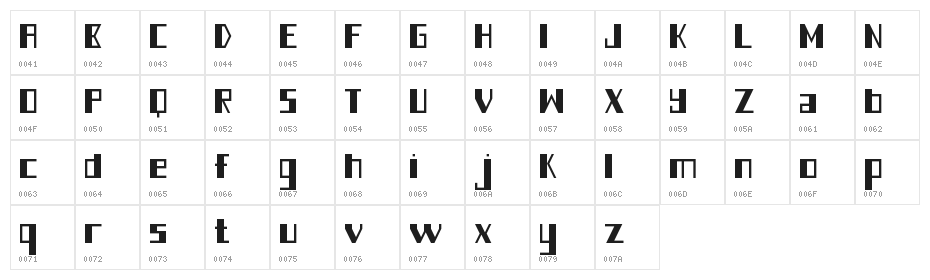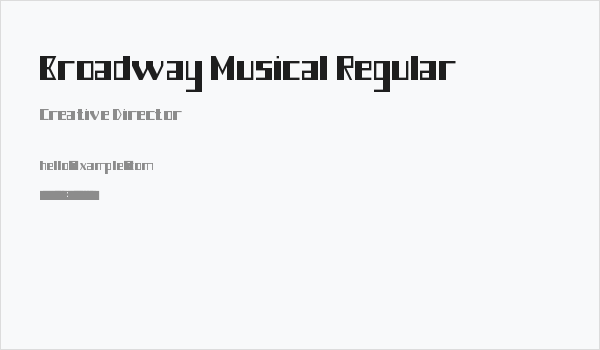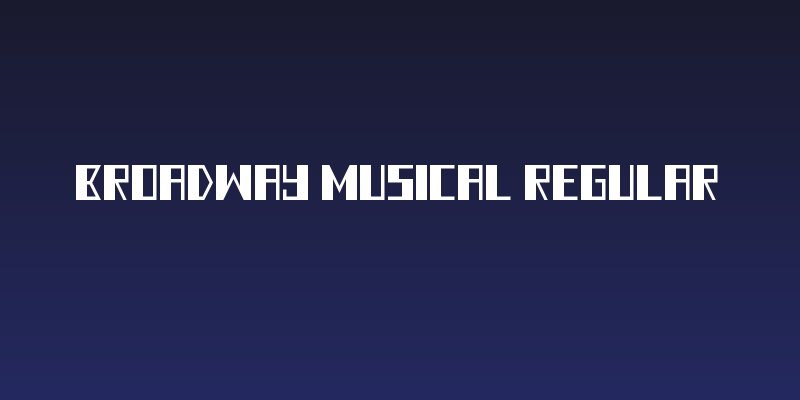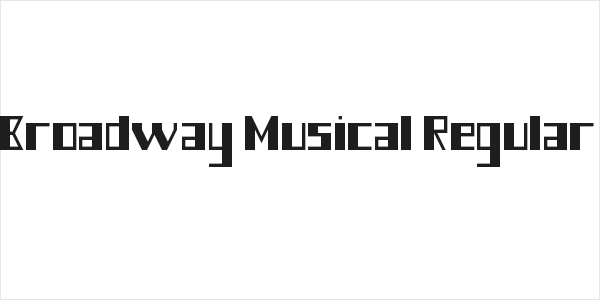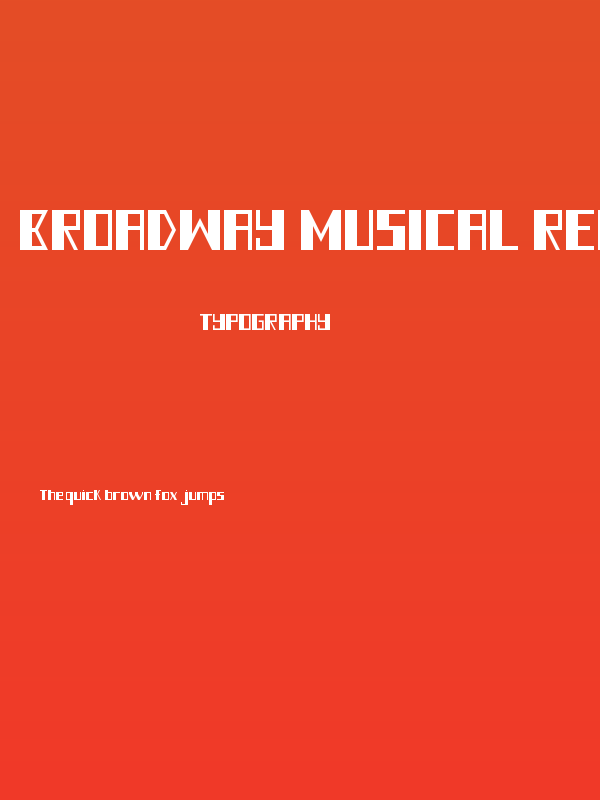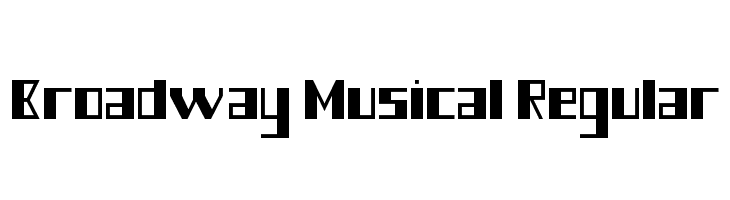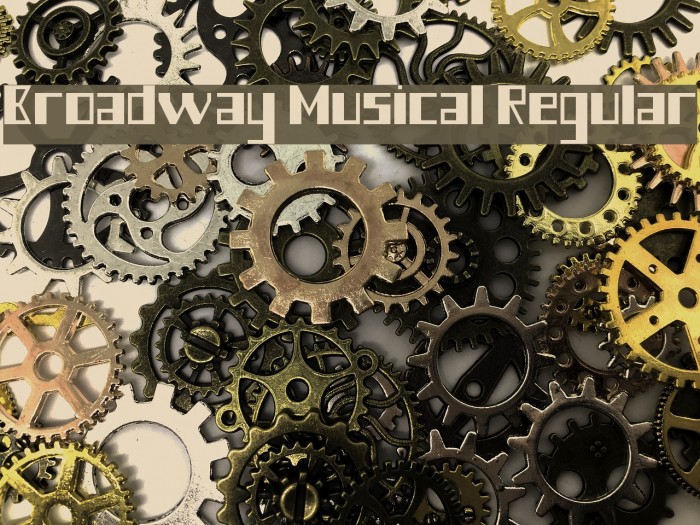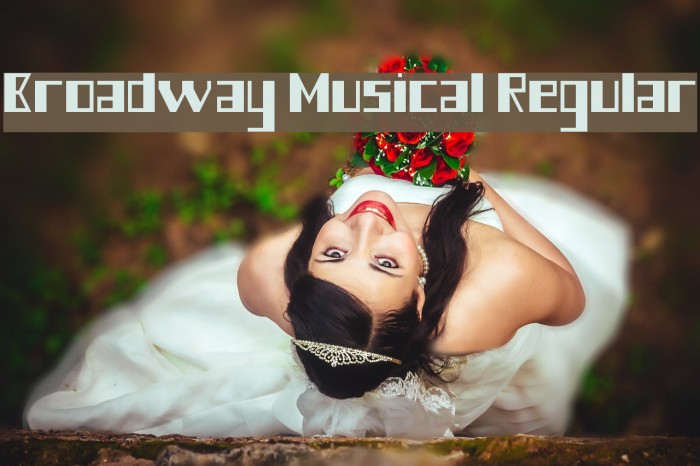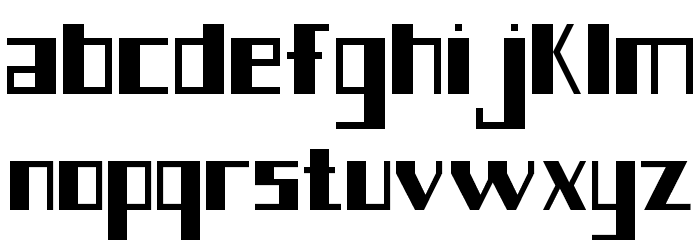
Broadway Musical Regular Font
Broadway Musical Regular Description
This font features a bold and geometric design with a strong Art Deco influence. The characters are constructed with sharp angles and straight lines, creating a sense of drama and elegance. The uppercase letters are particularly striking, with a uniform height and width that gives them a commanding presence. The lowercase letters maintain the geometric style but with slightly softer edges, providing a nice contrast to the uppercase. The numerals and special characters are consistent with the overall design, ensuring a cohesive look. This font is ideal for creating a vintage or theatrical atmosphere, making it perfect for use in posters, signage, and other display purposes.
| Proposed Projects | Perfect for theatrical posters, vintage signage, branding for luxury products, and any project needing a touch of Art Deco elegance. |